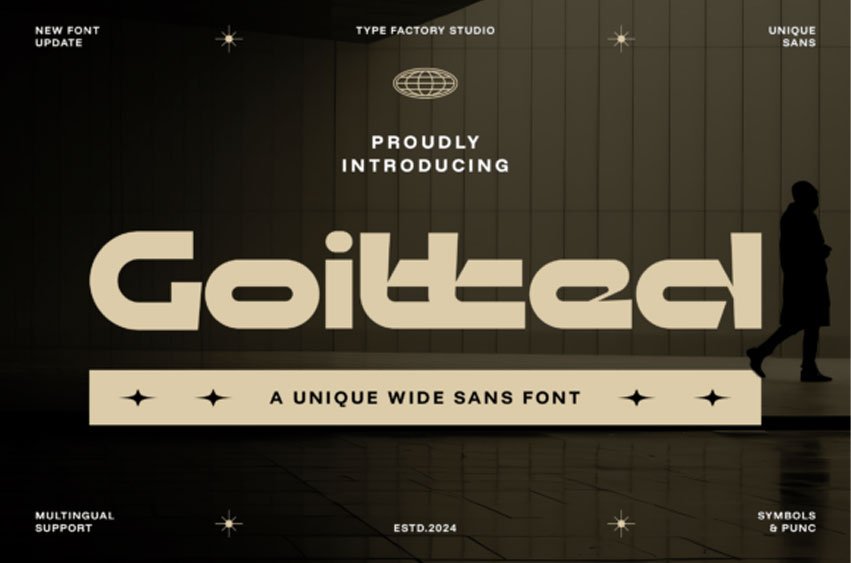
Goitted Font is a wide futuristic sans serif font built with geometric structure and strong horizontal proportions. Its extended letterforms, bold weight, and sharp detailing create a modern and forward-looking visual tone.
The typeface includes uppercase, lowercase, numerals, punctuation, ligatures, multilingual support, and symbols. Goitted works effectively for headlines, branding systems, posters, signage, packaging, technology visuals, automotive graphics, and contemporary design layouts that require a wide and impactful sans presence.